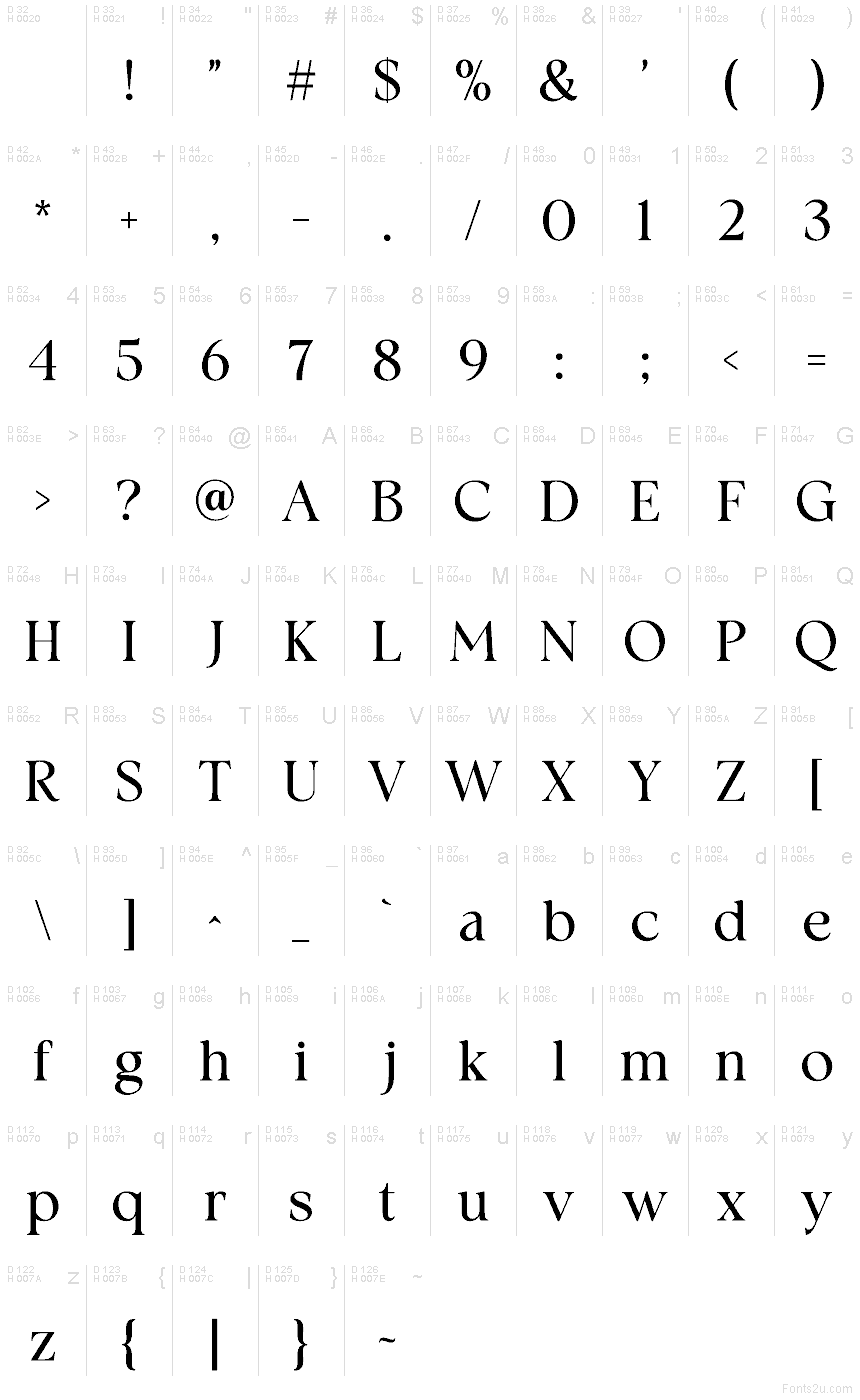
Calm Serif
Calm Serif font by Riyadh Rahman is a free serif typeface that presents elegance as a way of living. The font is classic, refined, and timeless with an overall stately design appearance embellished subtly in every inch. Each character brings out the beauty of elements otherwise mundane like its curves and edges.
Use Calm Serif for book covers, quotes, branding projects, identity cards, posters, banners, headings in magazines or brochures. Websites can benefit from its balanced appearance on landing pages or as part of online publications like blogs and e-books.